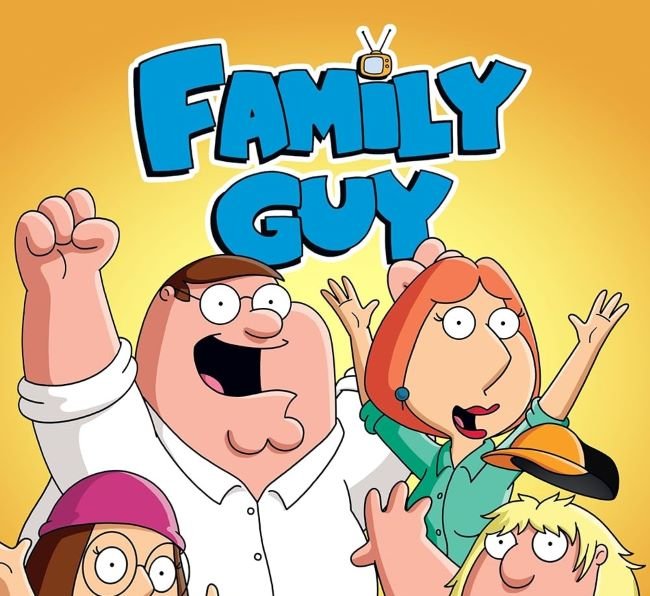
Family Guy font is the typography of a show that has been cheerfully crossing lines since 1999 and has absolutely no intention of stopping — chunky, exaggerated cartoon font with the visual energy of a carnival poster crossed with a Saturday morning cereal box, communicating maximum noise and zero restraint before the theme song has even finished.
Seth MacFarlane’s Fox animated series needed title lettering that could match its aesthetic: loud, broad, unapologetically lowbrow while being significantly smarter than it looks, and the bold, overscaled display lettering delivers exactly that combination of apparent crudeness and actual calculation. The freely available Family Guy Font brings this cheerfully unhinged cartoon energy to creative projects.